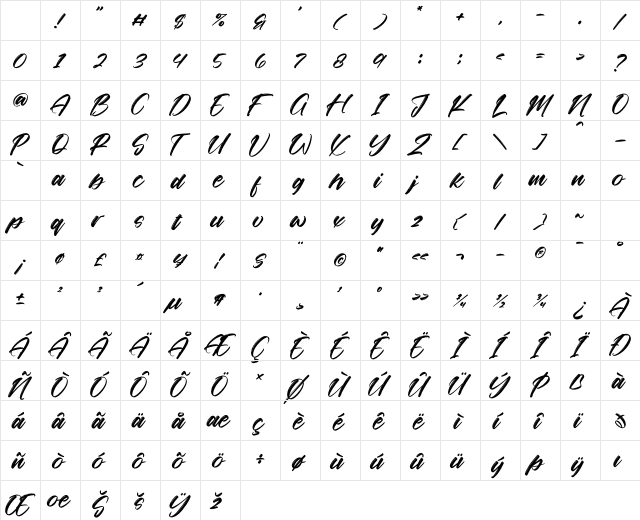
Complete Bakelline Micigants Regular glyph index. Displaying only characters natively supported by Bakelline Micigants Regular font.
Bakelline Micigants is a composed and adaptable typeface that performs quietly and consistently across a wide range of design contexts.
Who designed the Bakelline Micigants Regular font?